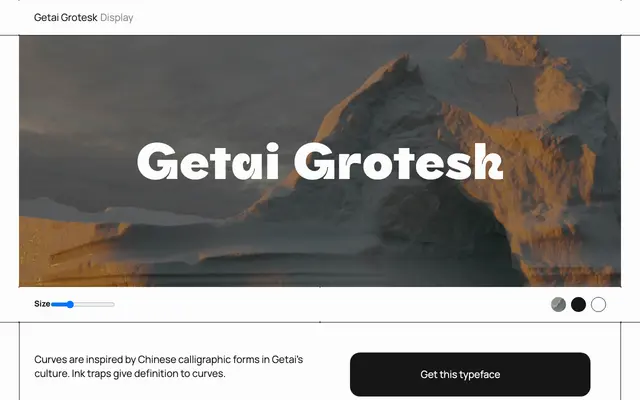
Getai Grotesk
A free display grotesque with minimal documentation, offering a single weight for headline use.
A display-oriented grotesque available as a free typeface through the Free Faces gallery. The page provides minimal detail, listing a single weight with no italic or condensed variants. Suited to large-scale headline settings where a straightforward grotesque character is needed.
Listed explicitly as Display on the page, combining grotesque sans characteristics with display-oriented proportions intended for large-scale use.